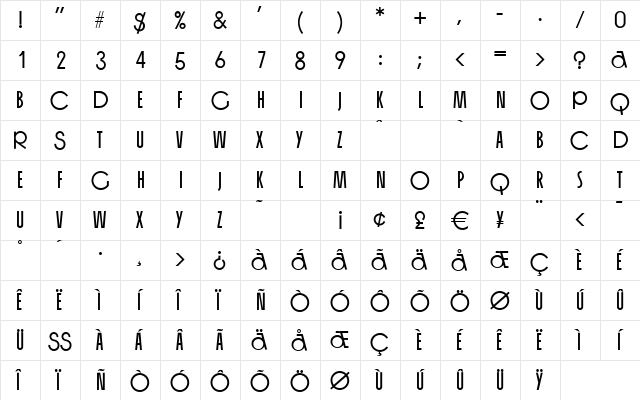
OrganGrinder Regular
Design Context for OrganGrinder Typeface
OrganGrinder takes a measured approach to typography — its balanced proportions and neutral character make it a reliable workhorse for both digital and print work.